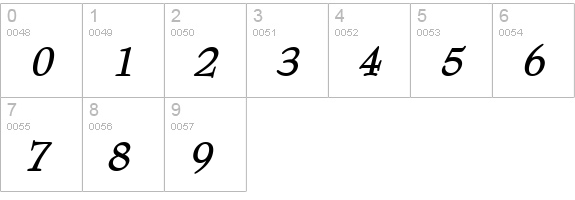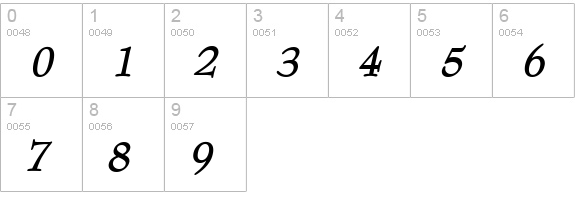
Bernhart Bold Italic Font Details
Bernhart Bold Italic is a strong, high-contrast, italic variant in the Bernhart typeface family \xE2\x80\x94 well suited to headlines, attention-grabbing titles, and strong calls-to-action.